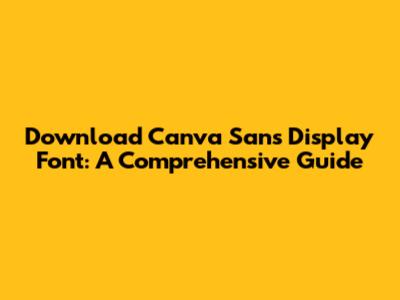
Download Canva Sans Display Font: A Comprehensive Guide
Hey guys! Ever wondered about that sleek, modern font you see everywhere in Canva? Yep, we're talking about Canva Sans Display. It's the go-to choice for a clean, readable design, and you're probably here because you're looking to snag it for your own projects. Well, you've come to the right place! This guide is all about getting your hands on the Canva Sans Display font download and how to use it like a pro. Whether you're a seasoned designer or just starting out, we'll break down everything you need to know. Let's dive in!
What is Canva Sans Display Font?
So, what exactly is Canva Sans Display? It's a humanist sans-serif font, meaning it has a friendly, approachable feel, making it perfect for both headlines and body text. The Canva Sans Display font is known for its clarity and versatility. It's designed to be easily readable at various sizes, making it ideal for everything from social media graphics to presentations and even printed materials. Unlike some fonts that are too flashy or difficult to read, Canva Sans Display strikes a perfect balance. It's clean, contemporary, and gets the job done without being distracting. Because of its legibility, this font is incredibly useful in a variety of design applications. In addition to being pleasing to the eye, it is also highly practical. The font's consistent letterforms make it easy to scan text quickly and efficiently. This makes it a great option for everything from website content to infographics.
What makes Canva Sans Display special? Well, it's the font that Canva uses across its platform. This means it's designed to work harmoniously with their design tools and aesthetic, and it's also a great fit for your own projects. Think of it as the perfect design partner: it complements other elements in your designs without stealing the show. Canva Sans Display offers a range of weights and styles. It's a powerhouse that delivers exceptional performance across a variety of design applications. The font family includes various weights, from light to bold, making it easy to create visual hierarchy and bring attention to key parts of your design. The overall design of the font is also quite versatile. The characters are well-proportioned and easy to read, making it suitable for both short headlines and lengthy bodies of text. This versatility makes it perfect for a wide range of uses, from web design to print materials. Moreover, it is a very well-designed and modern font. It's been carefully crafted to offer a contemporary feel, meaning it can be used to achieve a very current appearance, while still being able to deliver on readability. Canva Sans Display is an excellent choice for anyone looking for a versatile, readable font that can be used in a variety of design applications. This is why it's a great option for any project.
How to Use Canva Sans Display in Your Designs
Alright, let’s talk about how to make the most of Canva Sans Display in your designs. This font is incredibly versatile, so you can use it for various design projects, from logos to social media graphics. Let's start with the basics. Canva Sans Display is at its best when used for headings and short body text. Its clean lines and modern feel instantly give a contemporary vibe. The font can really make your message pop, whether you're creating an eye-catching headline for a blog post or a call-to-action for an ad. Think about using different weights, like Canva Sans Display Bold for titles and Canva Sans Display Regular for the body text. This visual hierarchy helps the reader navigate your design. Remember, choosing the right font is crucial for any design project. Canva Sans Display is a great option, but it needs to be used in a way that matches your overall design. Now, let’s talk about color. The font works beautifully with a wide range of colors. The key is to make sure there's enough contrast between the text and the background so it is readable. A simple trick: use Canva Sans Display on a dark background. It is also an excellent option when combined with bright and vibrant colors. Experiment with different combinations to find what looks best for your design. You can combine it with other fonts too. Sometimes, a successful design involves mixing different fonts to create contrast and add visual interest. Try using Canva Sans Display for headings and a different font for body text. This can help to give your design a sense of balance. Just be careful to choose fonts that complement each other. Avoid using too many different fonts in one design, which can make it look cluttered. By exploring the various weights, colors, and font combinations, you can create a design that looks great and communicates your message effectively. The power is in your hands to turn your ideas into a reality.
Best Practices for Canva Sans Display
To really make your designs shine, here are some pro tips for using Canva Sans Display:
• Choose the right weight: Use different weights of Canva Sans Display to create a visual hierarchy. Bold for titles and headings, regular for body text.
• Consider spacing: Adjust line height and letter spacing to improve readability. Give your text some breathing room!
• Use it strategically: Pair Canva Sans Display with a complementary font for a unique design. Experiment with combinations, but always prioritize readability. You can never go wrong with a classic, well-chosen font!
• Focus on Contrast: Make sure the font stands out against your background. This helps maintain readability. Test your design in various settings to verify it's clear and effective.
• Prioritize Readability: While using this font, always make sure your text is easily readable. Select font sizes that are suitable for your design's intended format and use. Be mindful of the overall visual balance.
By following these tips, you'll be well on your way to creating stunning designs that grab attention and convey your message effectively. Whether you're making social media posts, designing presentations, or creating marketing materials, the Canva Sans Display can be your secret weapon.
Canva Sans Display Font Alternatives
If you're not a Canva user or need a similar font for use outside of Canva, let’s look at some awesome alternatives to the Canva Sans Display font. Many fonts share a similar aesthetic and can be a great substitute. Here are a few to consider:
• Open Sans: Open Sans is a popular and free font available on Google Fonts, offering excellent readability and a clean look. It’s perfect for both headings and body text, making it a versatile alternative.
• Lato: Lato is another excellent choice, known for its friendly appearance and clear letterforms. It’s also free and easy to download, making it a great alternative to Canva Sans Display.
• Roboto: A modern sans-serif font designed by Google, Roboto is another solid option. It provides excellent readability and is widely used across the web.
• Montserrat: Montserrat is a geometric sans-serif font that offers a modern look with great legibility. It's a fantastic alternative for creating a clean and contemporary design.
• Poppins: Poppins is a geometric sans-serif font, also available on Google Fonts. This font is perfect for headlines and body text and is available in multiple weights. Its clean, modern look makes it a perfect replacement for Canva Sans Display.
These alternative fonts share many of the same characteristics as Canva Sans Display. They are all clean, readable, and versatile. Experimenting with different fonts can bring a unique look to your designs. Also, always keep in mind that the best font for your project depends on your specific needs and design goals. You want to pick a font that matches your design goals. By exploring these alternatives, you can find the perfect font that fits your unique needs.
Conclusion: Elevate Your Designs with Canva Sans Display
So, there you have it, folks! While a direct Canva Sans Display font download isn't available, you've got everything you need to leverage this amazing font within the Canva platform and through clever alternatives. Remember, whether you're a beginner or a design pro, the key is to experiment, have fun, and find the perfect font to bring your vision to life. So go ahead, start designing and let your creativity flow. With these tips and tricks, you can create stunning designs. Happy designing!